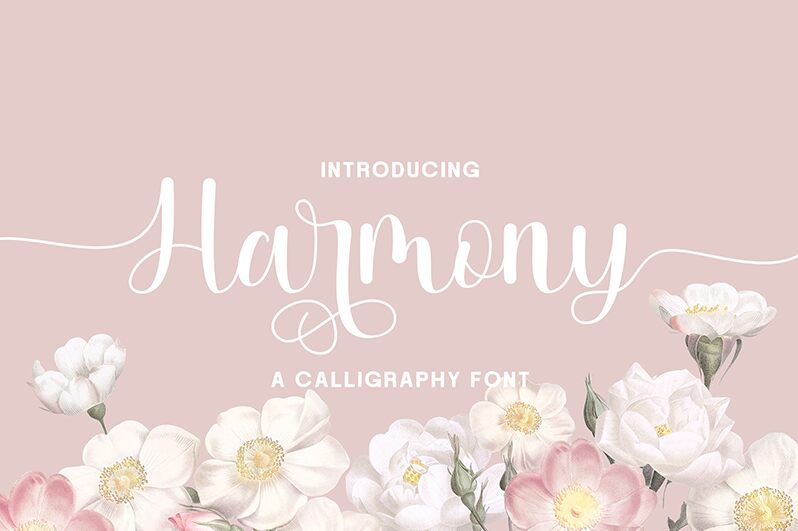
Harmony
Harmony, the stunning calligraphy font designed by MJType, is the perfect choice for your elegant design projects. This semi-light typeface features graceful strokes and flowing curves that create a harmonious balance between sophistication and creativity. Whether you're designing wedding invitations, book covers, or branding materials, Harmony will add a touch of refinement to your work. Its delicate yet legible appearance makes it ideal for both body text and headlines. With its versatility and beauty, Harmony is a font that will elevate any project with its subtle charm and timeless appeal.